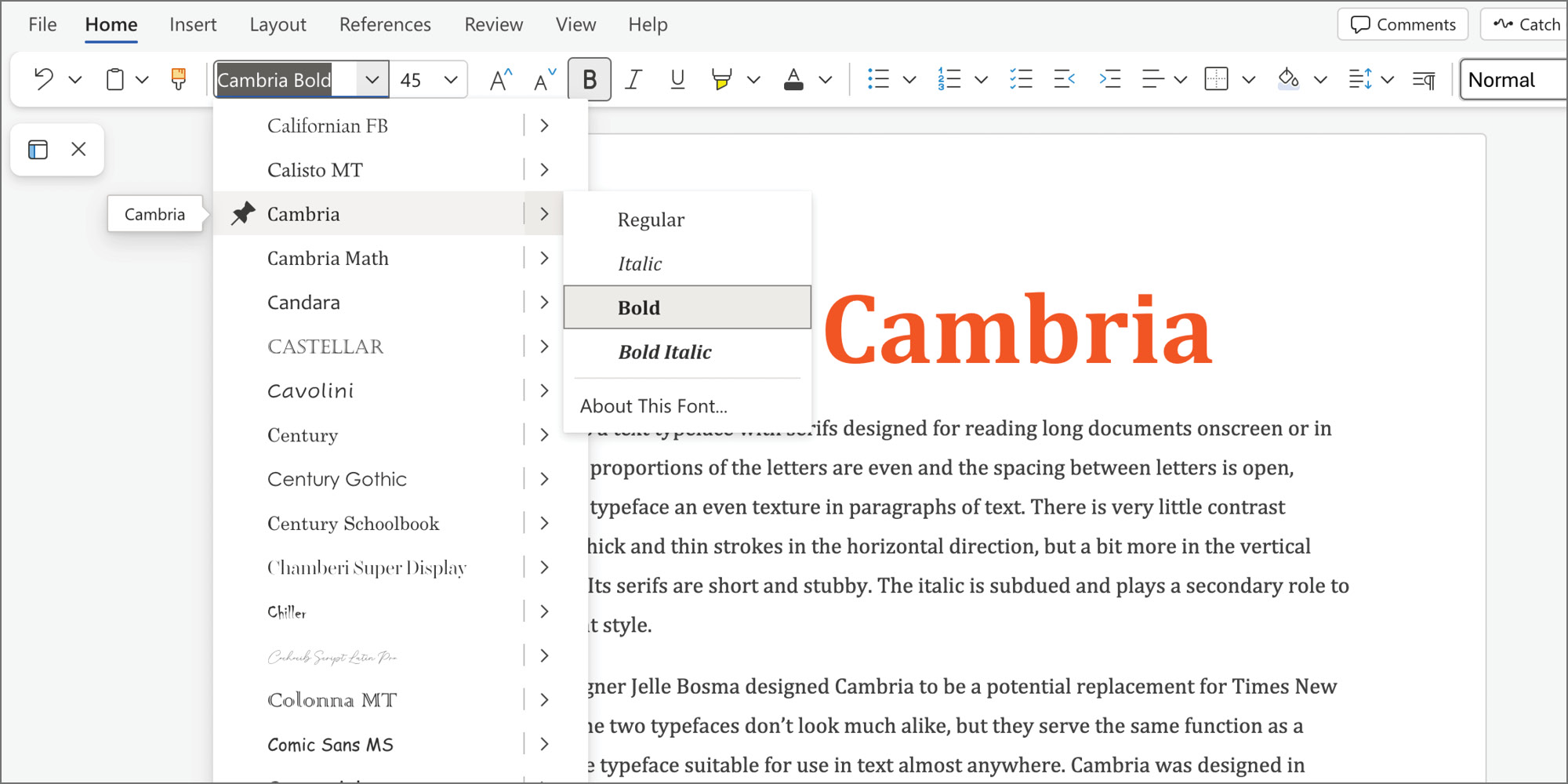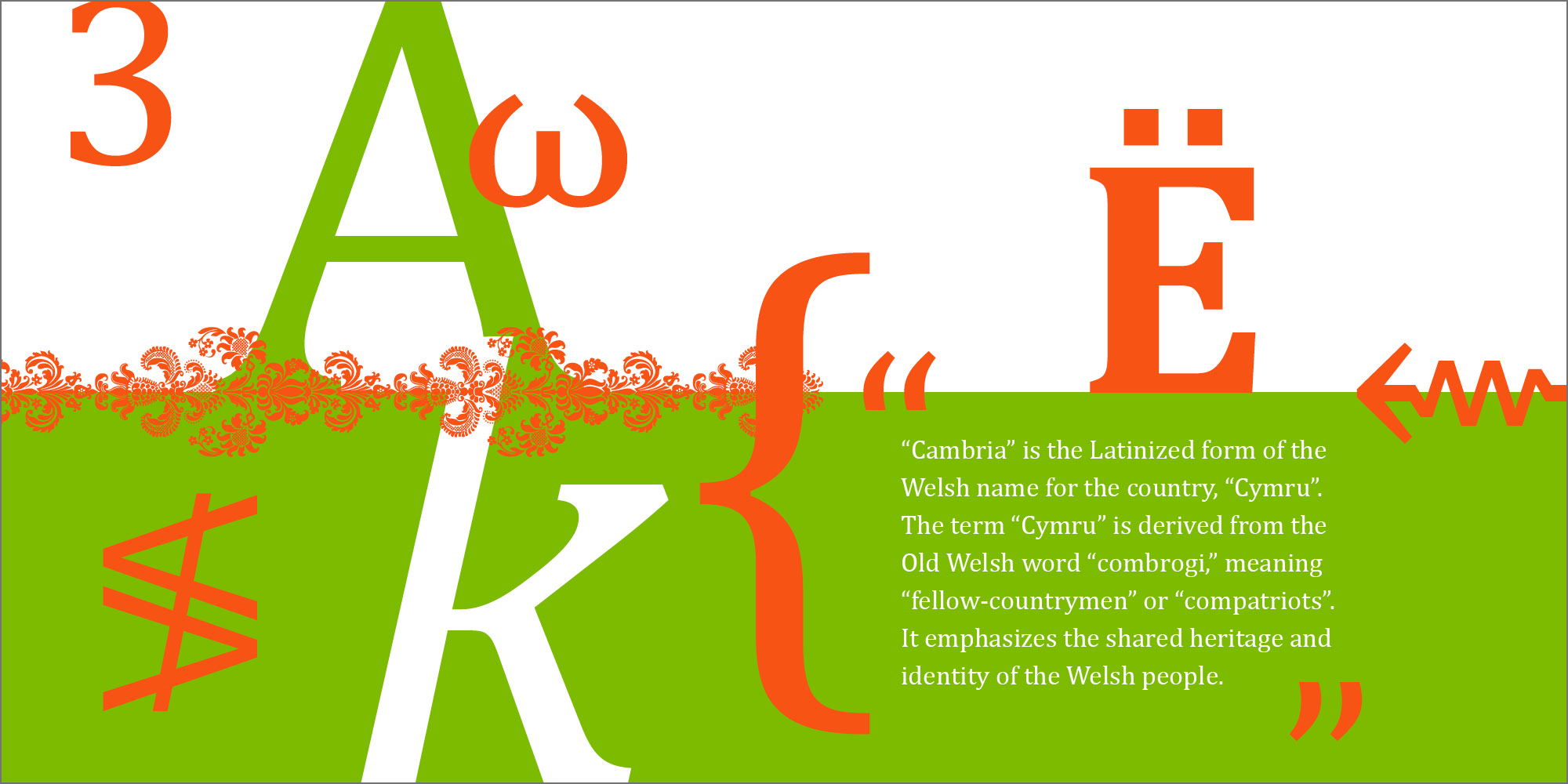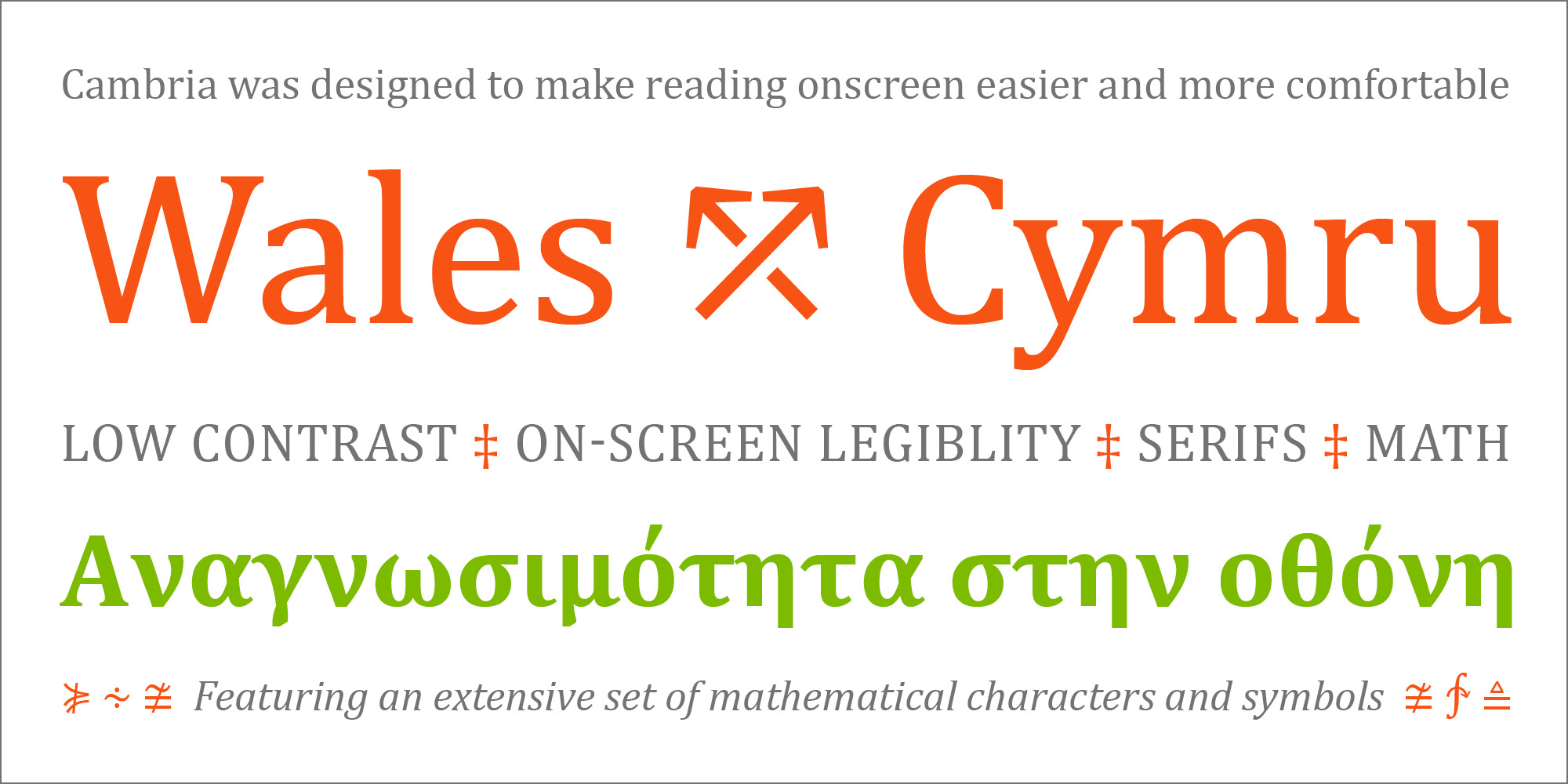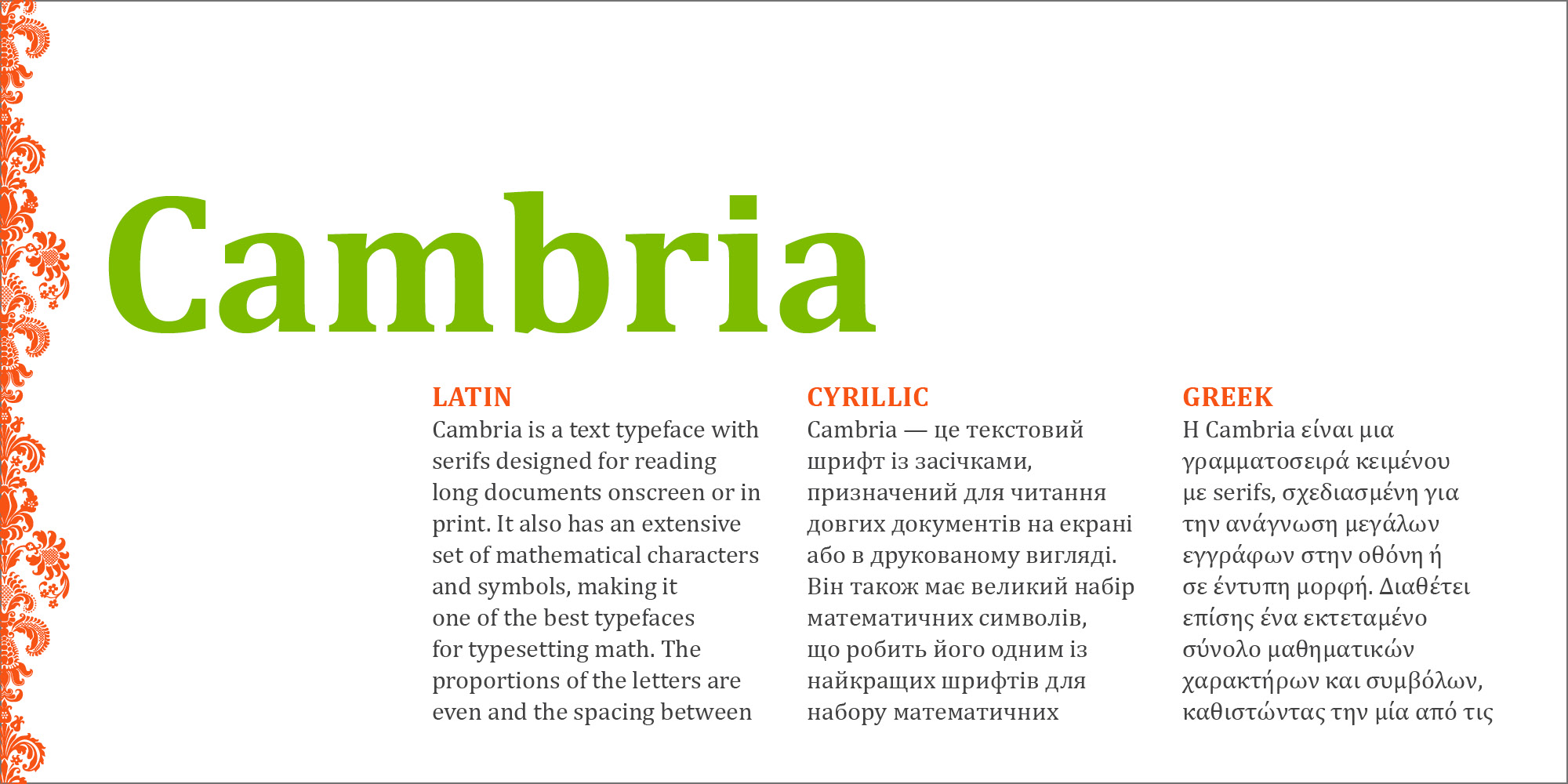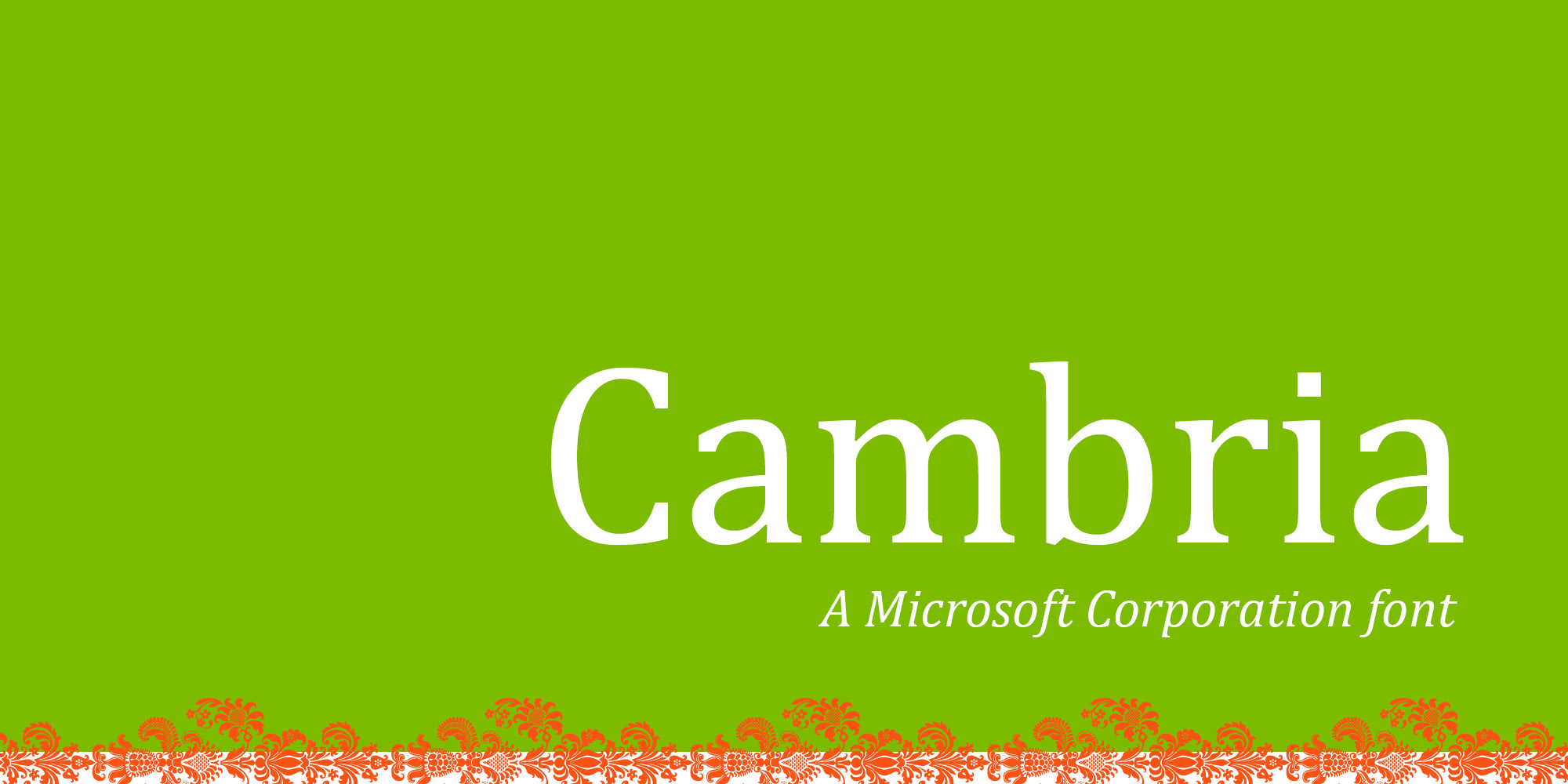
Cambria is a text typeface with serifs designed for reading long documents onscreen or in print. The proportions of the letters are even and the spacing between letters is open, giving the typeface an even texture in paragraphs of text. There is very little contrast between thick and thin strokes in the horizontal direction, but a bit more in the vertical direction. Cambria’s serifs are short and stubby. The italic is subdued and plays a secondary role to the upright style.
Type designer Jelle Bosma designed Cambria to be a potential replacement for Times New Roman. The two typefaces don’t look much alike, but they serve the same function as a workhorse typeface suitable for use in text almost anywhere. Cambria was designed in 2004 as part of the Microsoft ClearType font collection, to make reading onscreen easier and more comfortable. Cambria also has an extensive set of mathematical characters and symbols, making it one of the best typefaces for typesetting math. The Greek and Cyrillic has been designed under close supervision of an international team of experts, who aimed to set a historical new standard in multi-script type design.
| Designers | Monotype Imaging and Tiro Typeworks |
Cambria